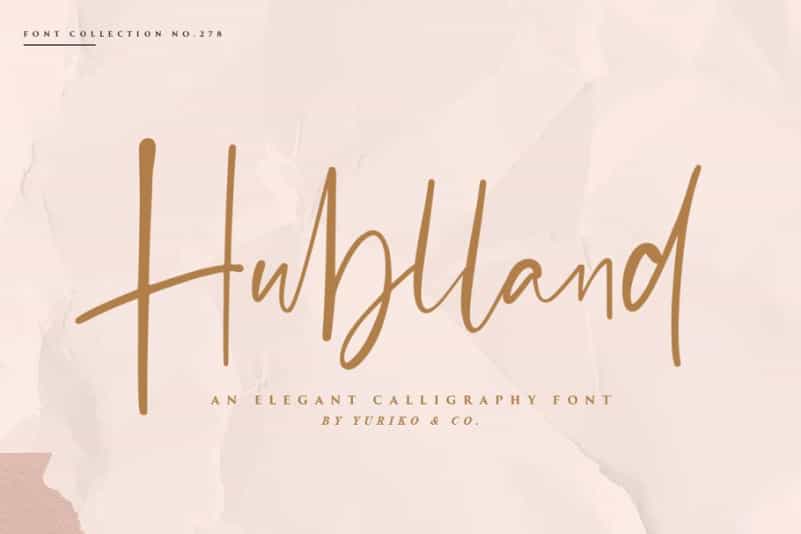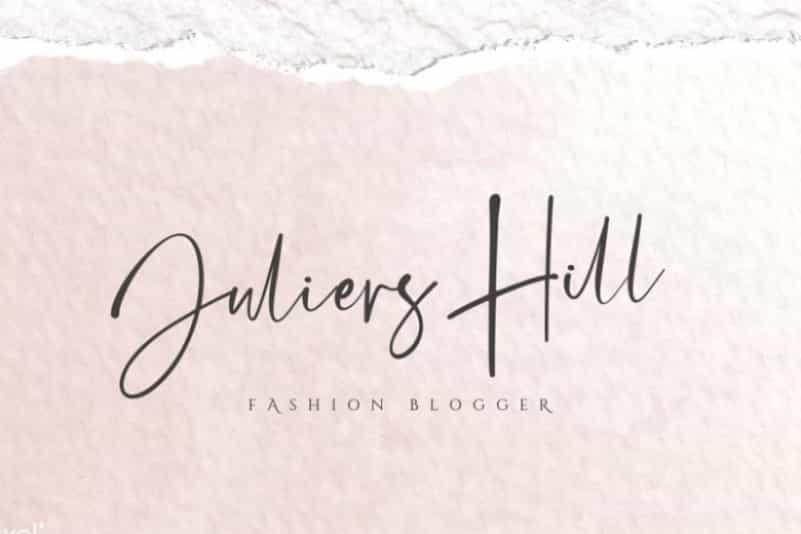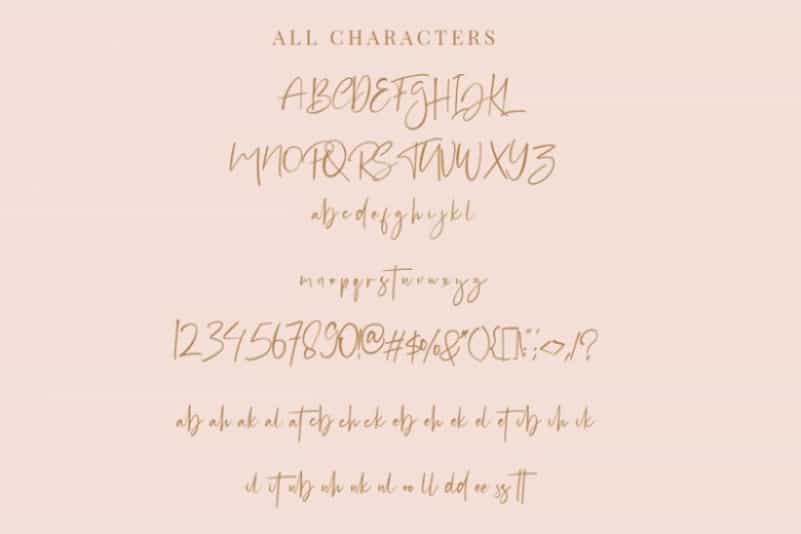
Introducing Hublland Font. This font is neat, clean and modern and has a handwritten and signature style making it look natural and stylish for any and all awesome projects that need that handwriting touch. It is design and shared by Yuriko & Co.